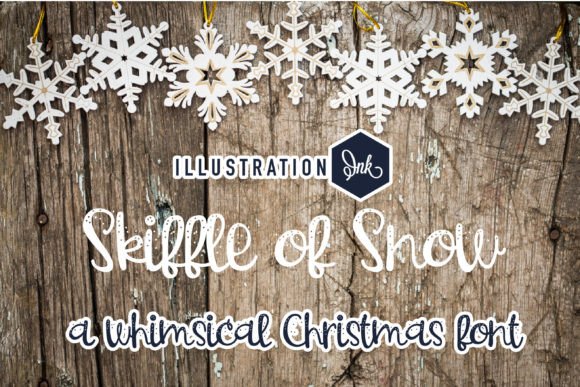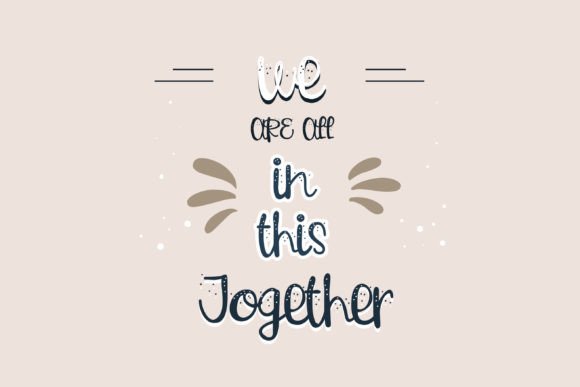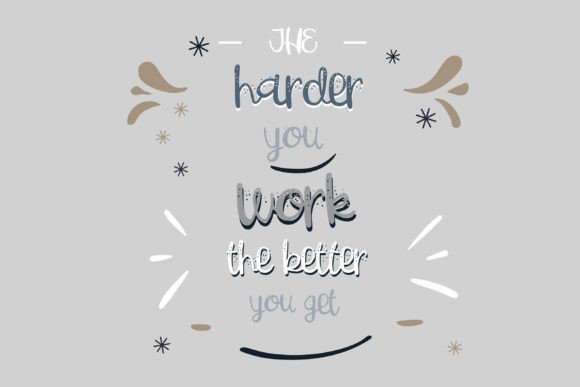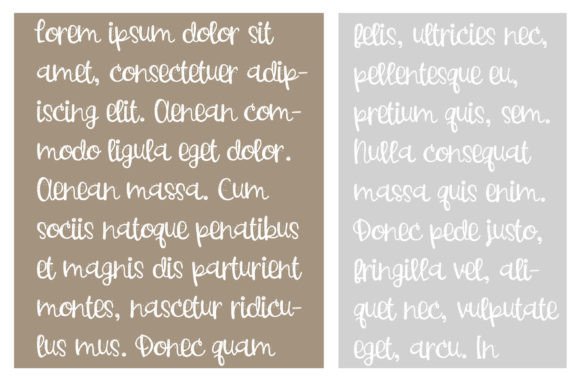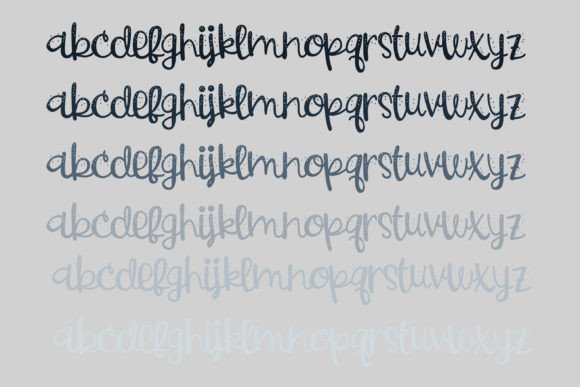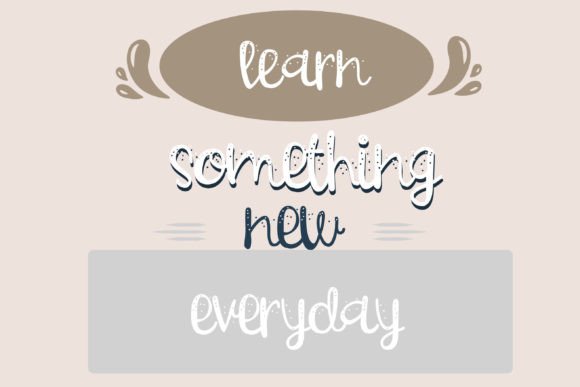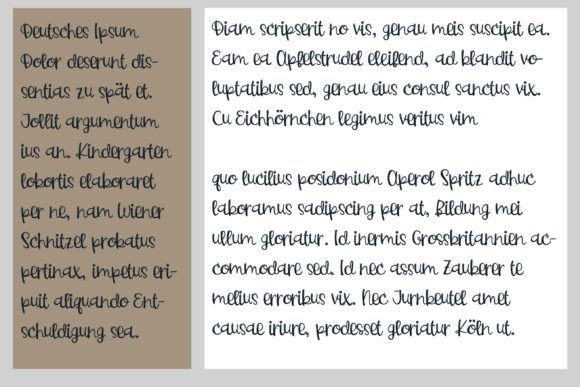
Skiffle of Snow Font
About Skiffle of Snow Font
Skiffle of Snow Font is a charming and festive decorative script designed to capture the cozy magic of winter. Its playful letterforms are adorned with delicate snow details, making it an ideal choice for your holiday-themed projects. From greeting cards to seasonal packaging, this font adds a wintry charm that instantly sets the tone.
This handwritten typeface balances whimsy and elegance. It invites warmth into every design while offering a distinctive snowy touch that helps your message stand out.
Ideal for Holiday Projects
You’ll love using Skiffle of Snow Font in a wide range of seasonal creations:
• Christmas and winter holiday cards
• Event invitations and seasonal banners
• Festive branding or logos
• Posters, merchandise, and apparel designs
• Sublimation projects, mugs, ornaments, and more
Because it’s decorative and easy to read, this font works well in both digital and print settings. It brings a handcrafted touch to any winter-themed design.
• Decorative script with snow elements built into the characters
• Handwritten aesthetic with a clean, polished look
• Great for holiday-related crafts and festive prints